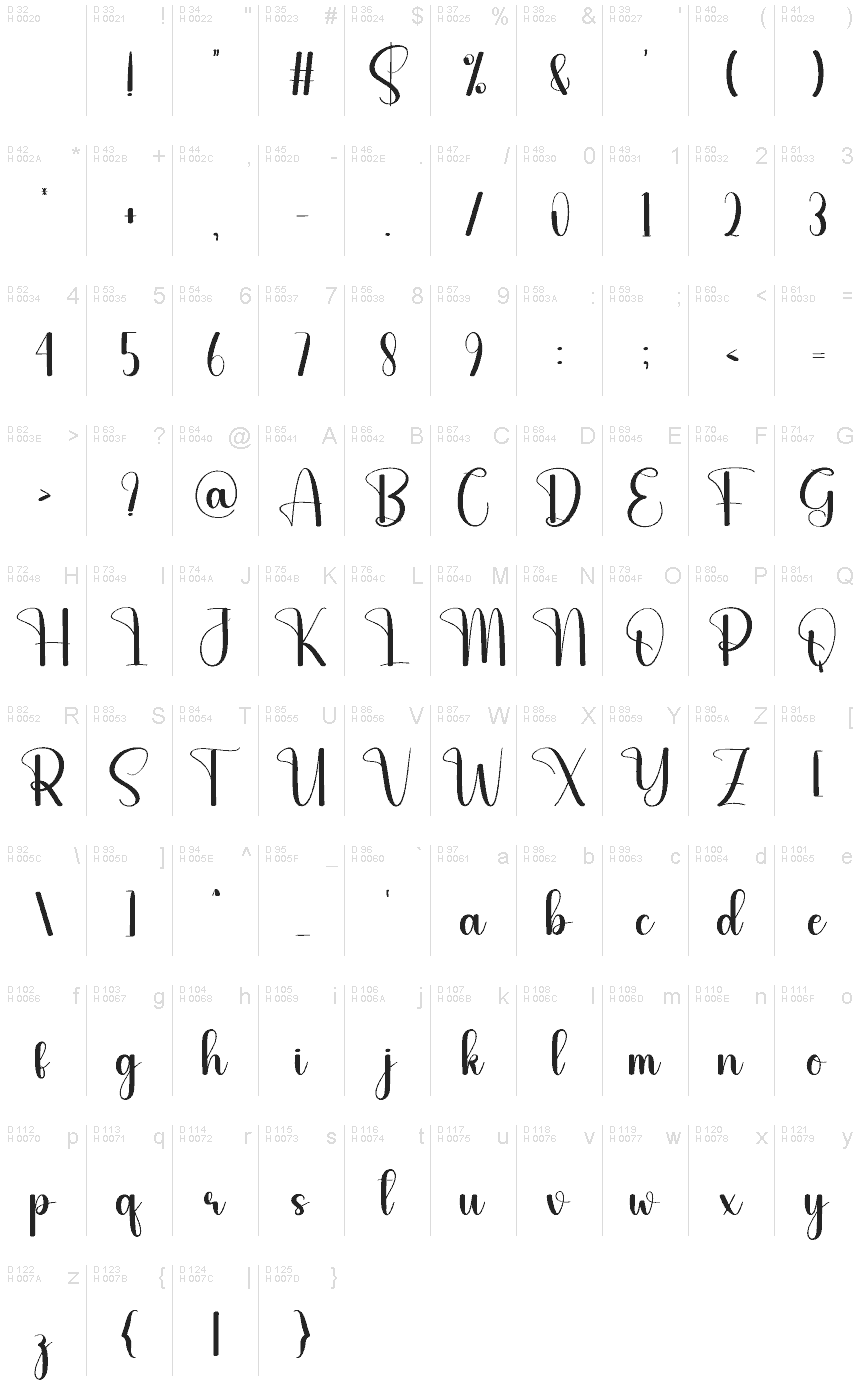
Great
Great font is a free handwritten font by Andi Moz. Its artistic feel brings out its elegant appearance with smart flowing lines and wonderful decorative elements. The expressive style of the curves gives it a classical influence that we can’t ignore and which completes the full potential of this font.